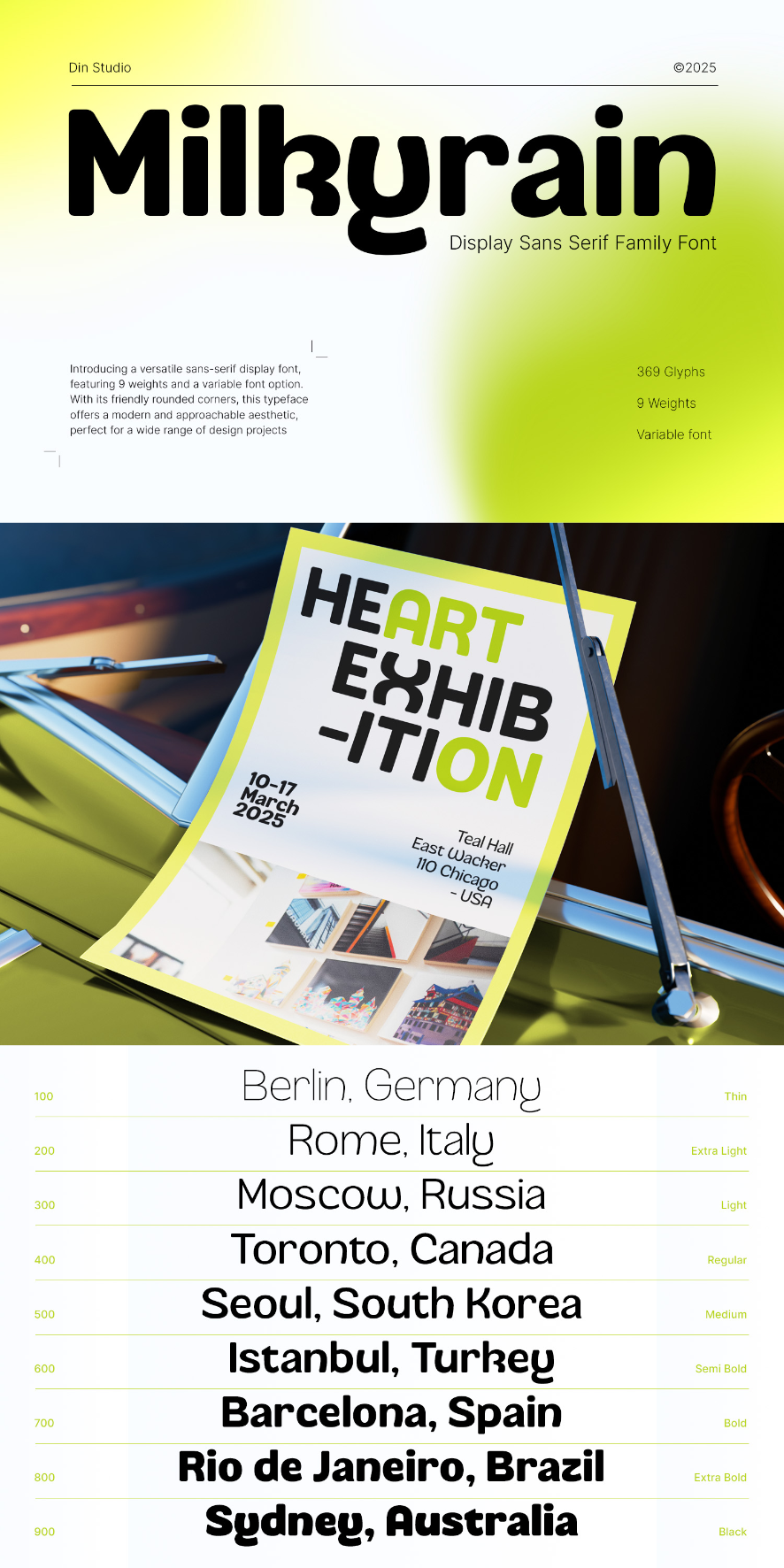
Milkyrain Font
About Milkyrain
Milkyrain is a charming sans serif font family that blends softness with simplicity. With 9 weights—from delicate Thin to bold Black—and a playful personality shaped by rounded corners and quirky letterforms, Milkyrain adds warmth and character to any design. Its variable font feature lets you fine-tune the weight seamlessly, making it perfect for everything that you need, from branding to creative packaging. In addition, enjoy the features here.
Milkyrain’s different weight fonts :
- Thin
- Extra Light
- Light
- Regular
- Medium
- Semi Bold
- Bold
- Extra Bold
- Black
Milkyrain fits in logos, branding, packaging, posters, social media post and many more designs. Find out more ways to use this font by taking a look at the font preview.